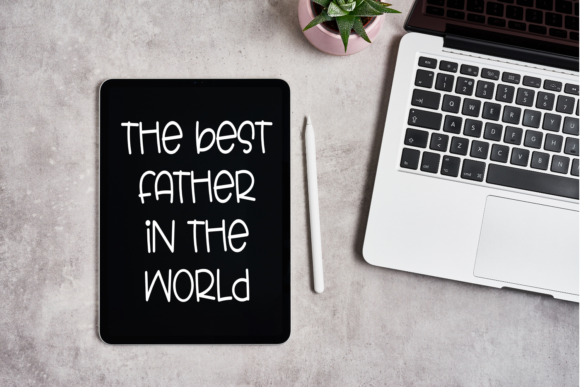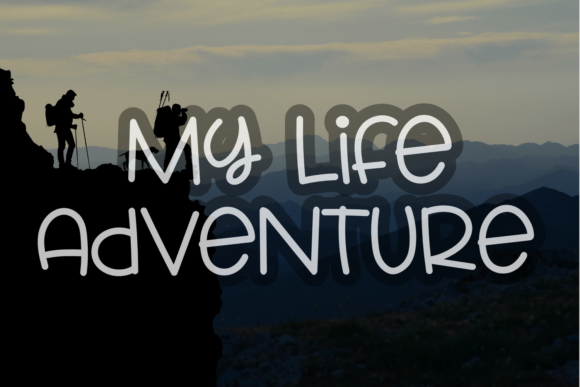
My Lovely Father Font
db-ku.com - Script & Handwritten -- My Lovely Father is a simple and informal handwritten font. Simple but with a strong visual effect, this font will instantly make your creation more appealing than any others.